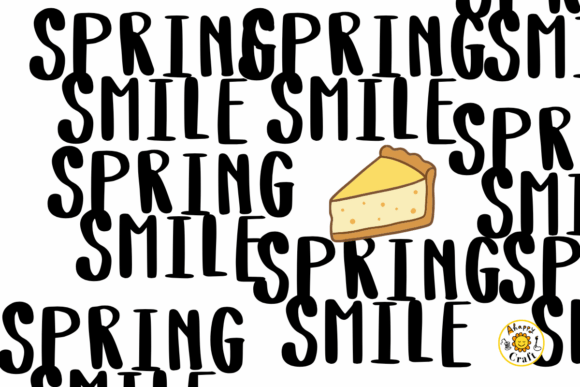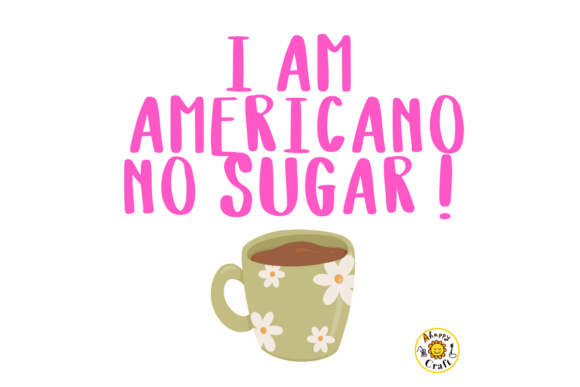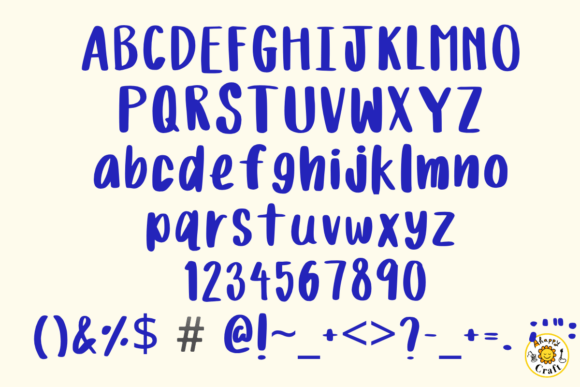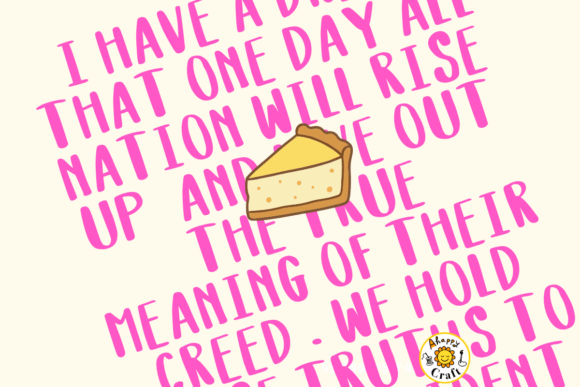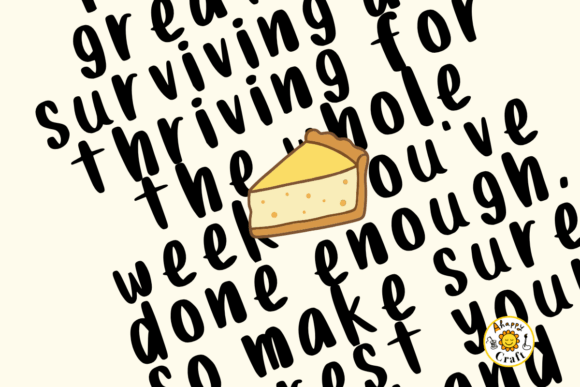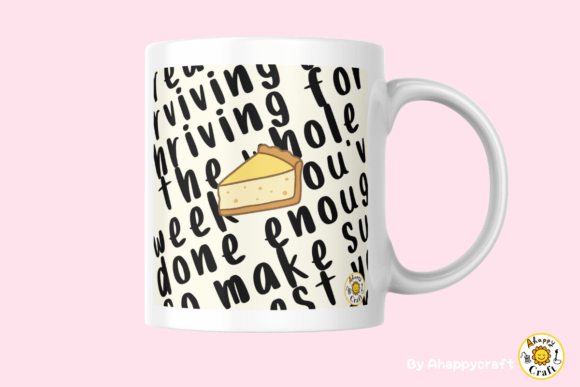
Jelly Fruity Font – Free Download
Introduction to Jelly Fruity Font
Squeeze a burst of sweet, playful energy directly onto your digital canvas with Jelly Fruity, a delightfully squishy handwriting display font.
| ๐ Product Name | Jelly Fruity Font |
| ๐ค Author | Ahappycraft |
Boasting high contrast, thick weights, and exceptionally smooth outlines, Jelly Fruity serves as an outstanding creative asset for high-impact titles over colorful backdrops, pastel patterns, and cartoon textures It is an absolute powerhouse shortcut for childrenโs birthday invitations, summer festival flyers, sweet boutique candy and dessert packaging, nursery wall decorations, school planners, and custom vinyl cutting crafts on Cricut or Silhouette.
Key Features of Jelly Fruity Font
Why Choose Jelly Fruity Font?